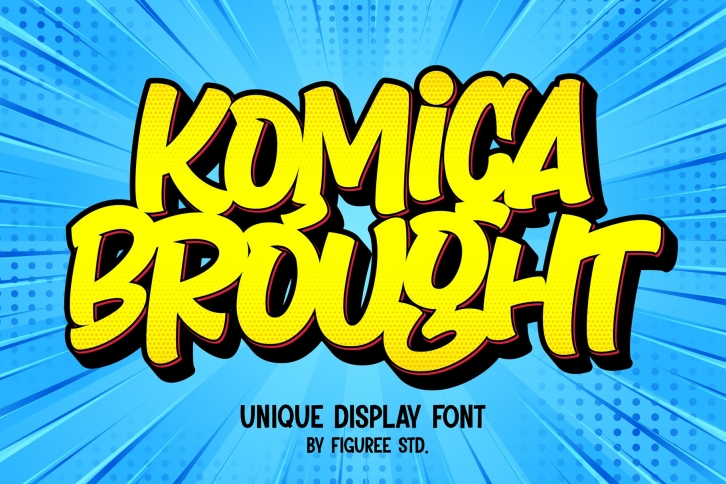
Komica Brought is a gorgeous font that was realeased on October 7, 2022. The font can be used in many style contexts and design environments. Perfect for invitations, magazines, websites, logos, and more! It was designed by Figuree Studio and the file size is 16.34 MB. Thanks for checking out this font!